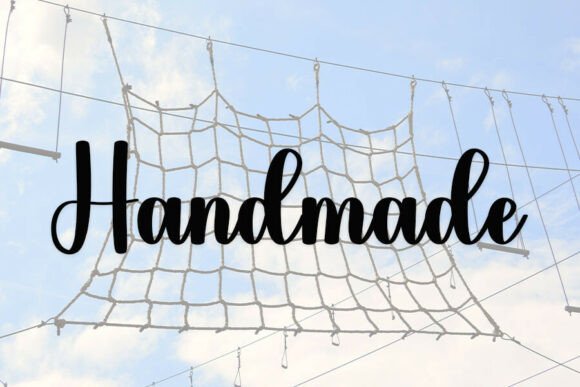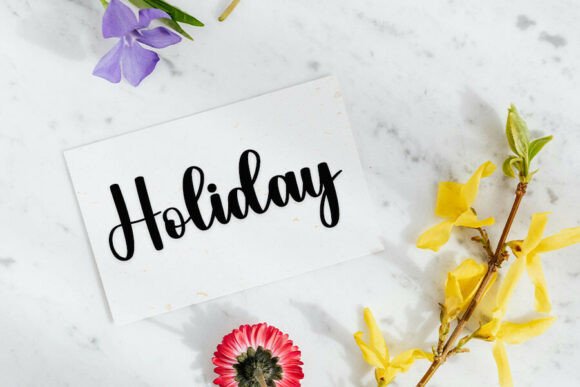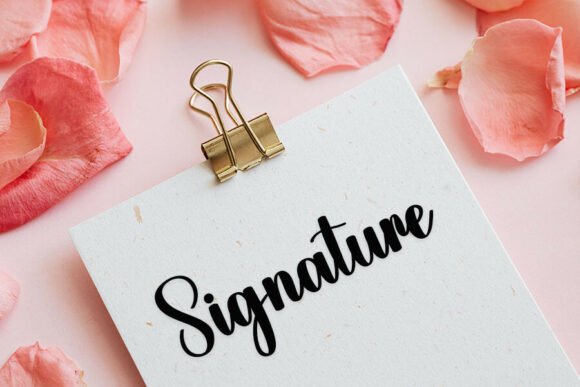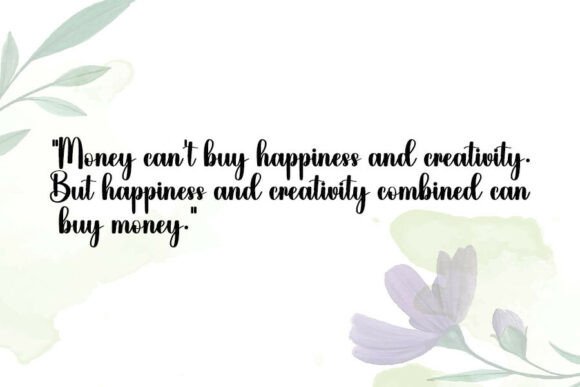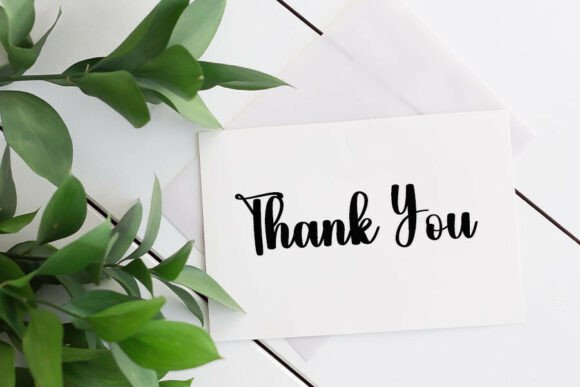
The Grinch Font: A Bold and Whimsical Addition to Your Design Arsenal
Ah, the holiday season. A time for joy, giving, and endless design projects. I still remember the year I was tasked with creating a festive winter promotion for a popular children’s bookstore. My goal was to craft a design that would capture the playful spirit of the season while also standing out on social media. But, as I scrolled through my font library, I found myself stuck – nothing seemed quite right. That was when I stumbled upon the Grinch font, and let me tell you, it was love at first sight! ✨
A Bold and Charismatic Font for the Holidays
The Grinch font is a bold and charismatic handwritten font that brings a touch of whimsical personality to your creative layouts. Characterized by its thick, juicy brush strokes and smooth, organic curves, this typeface strikes a perfect balance between playful energy and high legibility. Its sturdy weight and friendly, upright posture make it an exceptional choice for seasonal holiday branding, children’s book covers, festive event invitations, and eye-catching social media headers.
- ✨ Playful yet legible: The Grinch font walks the line between fun and readability with ease, making it perfect for a wide range of design projects.
- ✅ Versatile: From holiday promotions to children’s book covers, this font adapts to any design need with a charming, hand-inked aesthetic.
- 💫 Unique personality: The Grinch font has a distinct, hand-crafted feel that adds a touch of whimsy to any design.
While the Grinch font is incredibly versatile, there are a few things to keep in mind. ⚠️ Legibility at small sizes: Like many script fonts, the Grinch font can get a bit fuzzy at very small sizes, so it’s best used at larger sizes where its details can shine. 🤔 Pairing with other fonts: Due to its bold nature, it’s best to pair the Grinch font with simpler fonts to avoid visual overload.
The Designer Inspiration Behind Grinch
The Grinch font was inspired by the classic holiday tale, How the Grinch Stole Christmas! The designer aimed to capture the whimsical spirit of Dr. Seuss’s beloved character while making it versatile enough for modern designs. The result is a font that’s both nostalgic and fresh, perfect for adding a touch of holiday magic to your projects.
Q: What makes the Grinch font unique?
A: The Grinch font stands out with its thick, juicy brush strokes and smooth, organic curves, offering a perfect blend of playfulness and legibility.
Q: Is the Grinch font suitable for body text?
A: While the Grinch font is stunning for headlines and titles, its bold nature makes it less suitable for long body text. It’s best used for emphasis and headings.
Q: Can I use the Grinch font on social media?
A: Absolutely! The Grinch font is perfect for social media graphics, especially for holiday promotions and festive content, due to its eye-catching and engaging style.